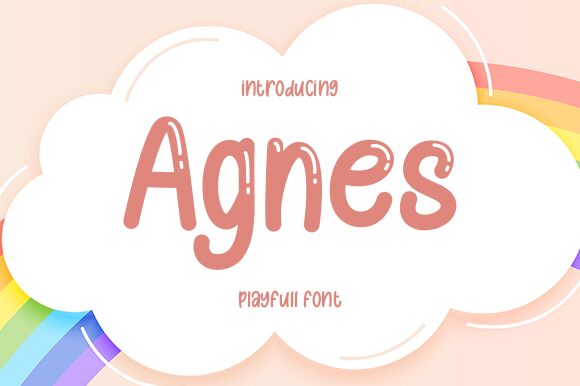
The playful handwritten font Agnes, designed by Aldi Raya Pradipta, is a light and beautiful typeface perfect for creative projects. It's ideal for logo designs, greeting cards, posters, and other artistic endeavors.
Presentazione e campione visivo del carattere Agnes